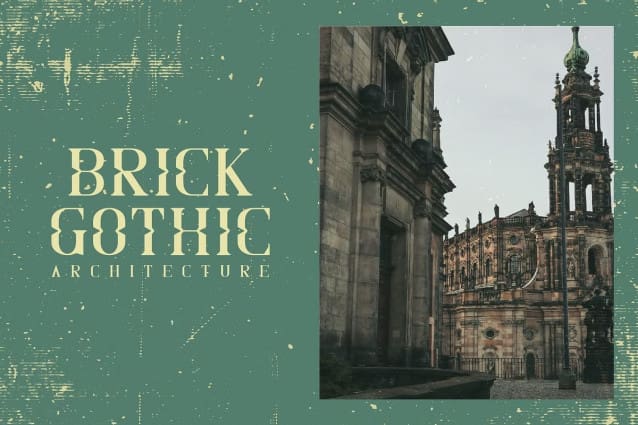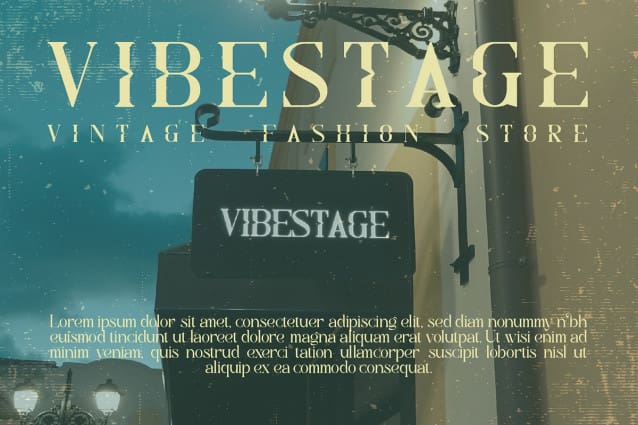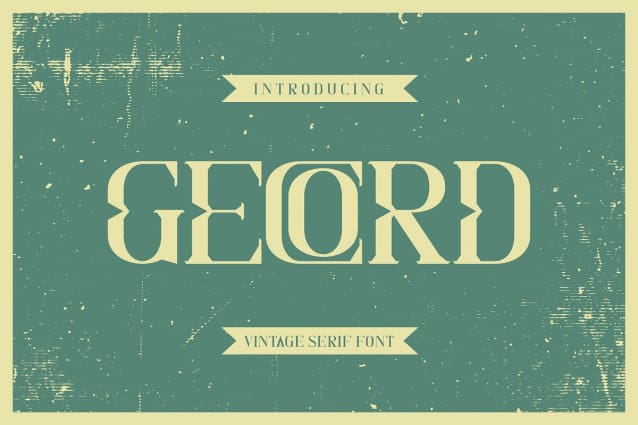
Gecord Font
Gecord Font – Vintage Serif Font, from Rishsketch Studios, is a premium Serif Font, perfect for any project that requires a distinctive, and premium feel.